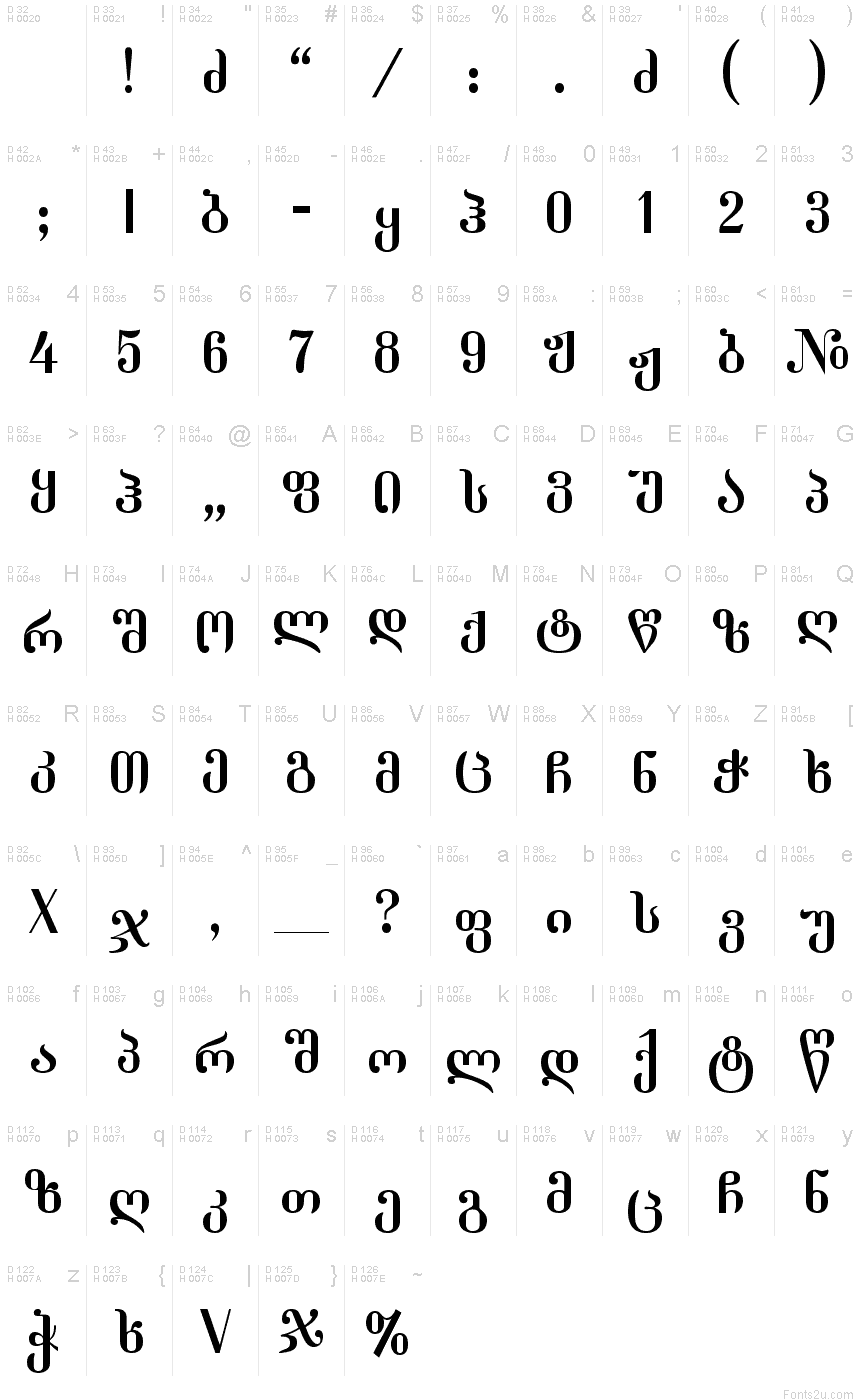
Dumbadze-ITV by Alexander and Temuri Imnaishvili is a free high-contrast Georgian display font with a striking calligraphic silhouette. Broad, rounded bodies meet hairline joins and long tapering strokes, producing letters that feel formal yet lively, with generous curves and sharply pointed ends.
Georgian culture and language are the natural focus here, making the font especially apt for festival posters, book covers, and arts branding rooted in the script. Its sculptural forms can turn a title into part of an illustrated cultural motif, and the design will appeal most to publishers, galleries, and event organizers seeking lettering with a distinctly Georgian voice.